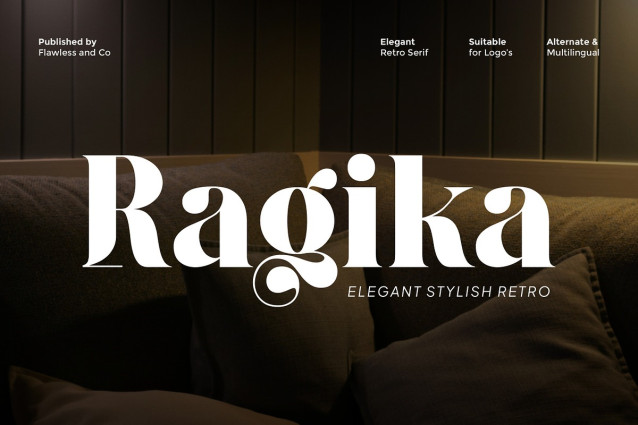
Ragika Font
Ragika Font is an elegant retro serif font that blends classic charm with a stylish modern touch. Inspired by vintage typography, Ragika features graceful curves, bold serifs, and refined details that bring warmth and personality to any design. Its timeless retro feel makes it perfect for creating designs that feel both nostalgic and sophisticated.